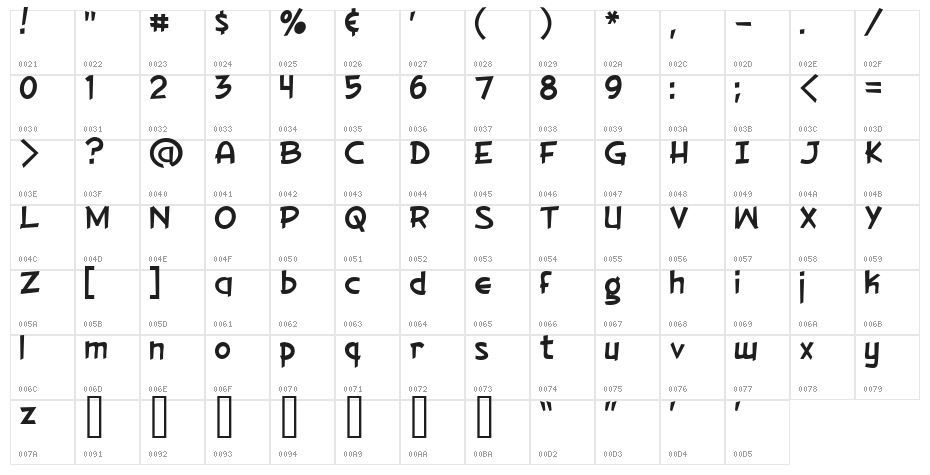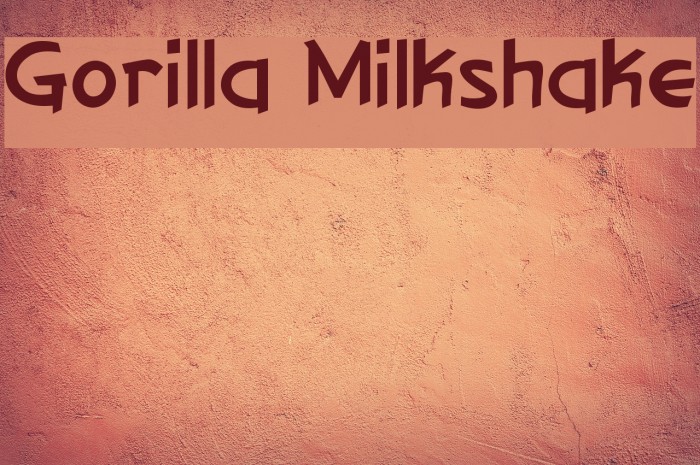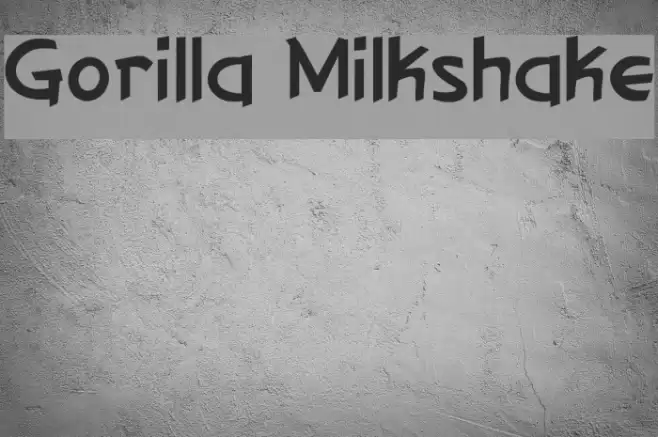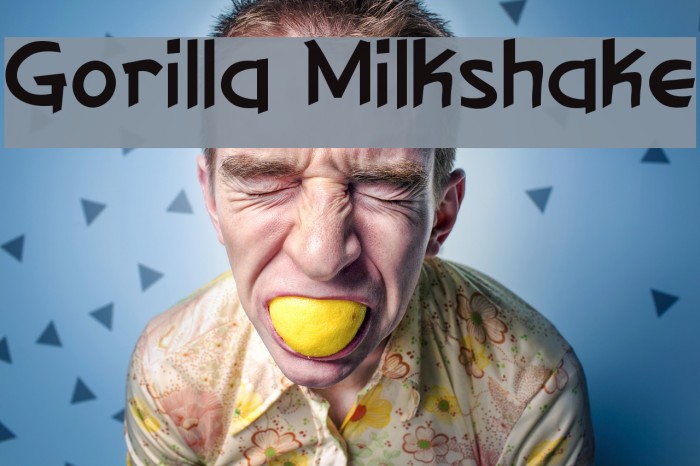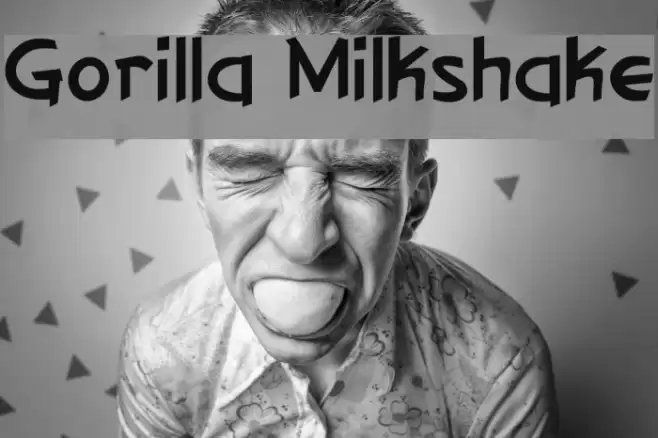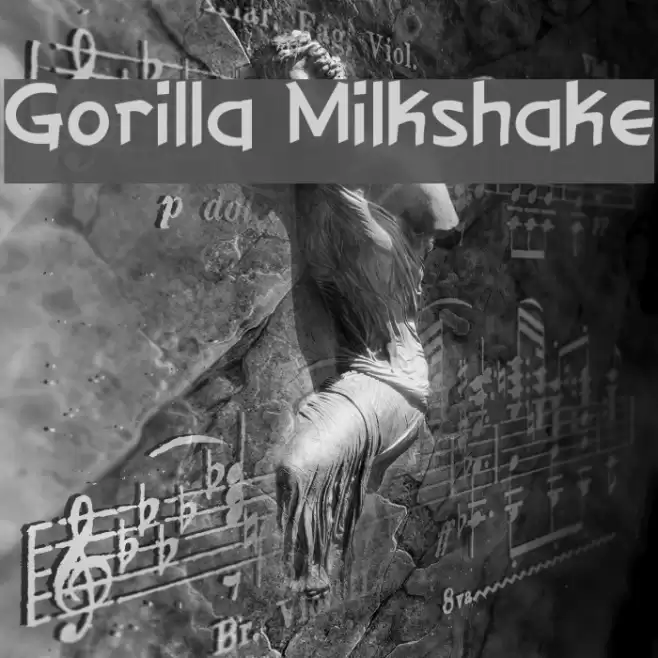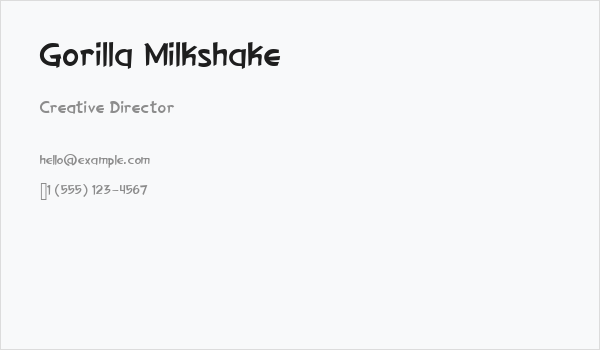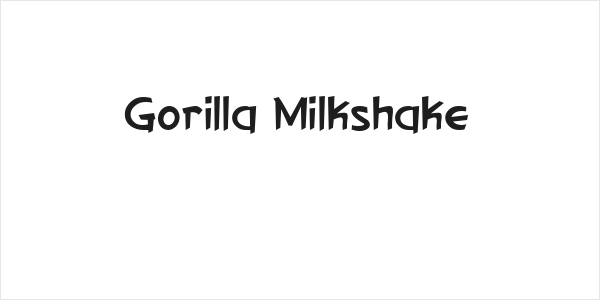
Gorilla Milkshake Font
Gorilla Milkshake Description
This font features a playful and bold design with a slightly irregular and hand-drawn appearance. The characters have a dynamic and energetic feel, with varying stroke widths that add a sense of movement and liveliness. The uppercase letters are robust and slightly tilted, while the lowercase letters maintain a consistent style that complements the uppercase. The numerals are bold and clear, making them easily readable. Special characters are creatively designed, maintaining the overall whimsical aesthetic. This font exudes a fun and informal vibe, perfect for projects that require a touch of personality and flair.
| Overall Style | Playful, Energetic, Whimsical |
| Proposed Projects | Ideal for children's books, playful branding, posters, and creative invitations. |